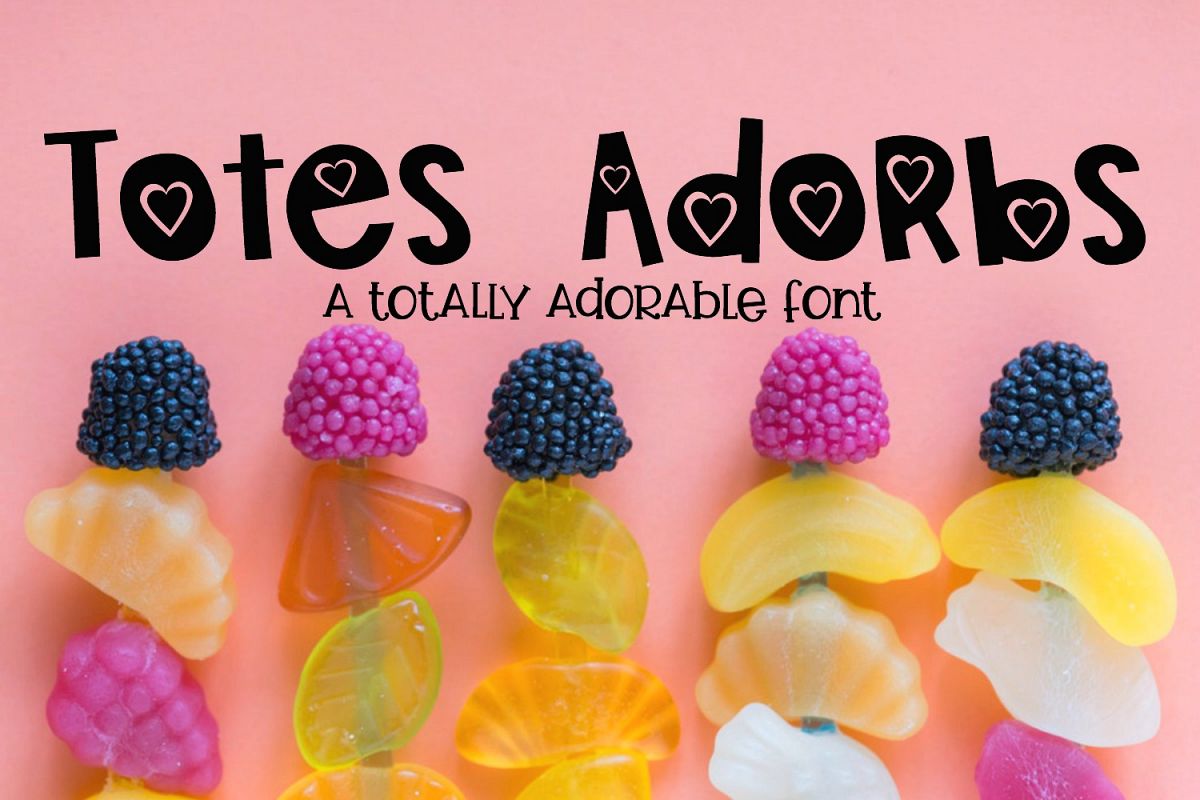
Totes Adorbs Font
Totes adorbs is a sweet, fun font that is perfect for so many designs!  It is available in TTF and OTF formats and supports English and most Western European languages.